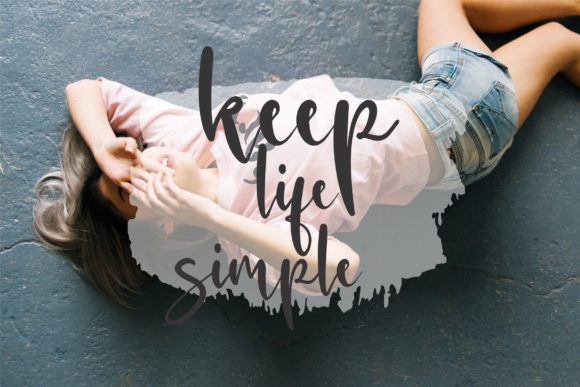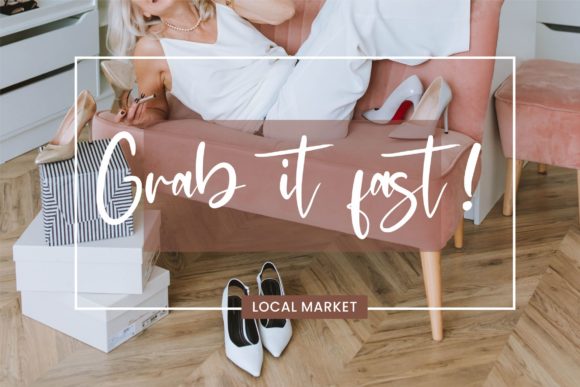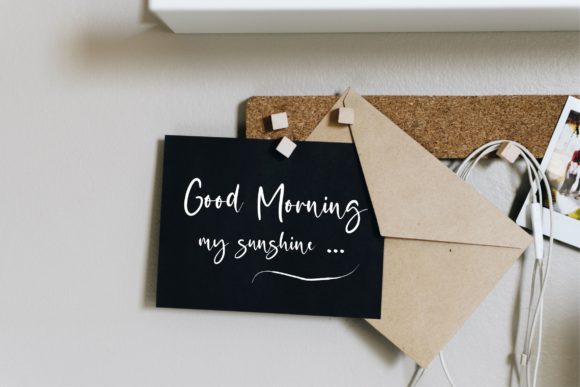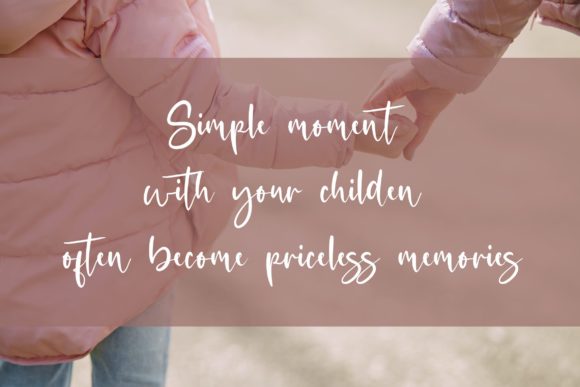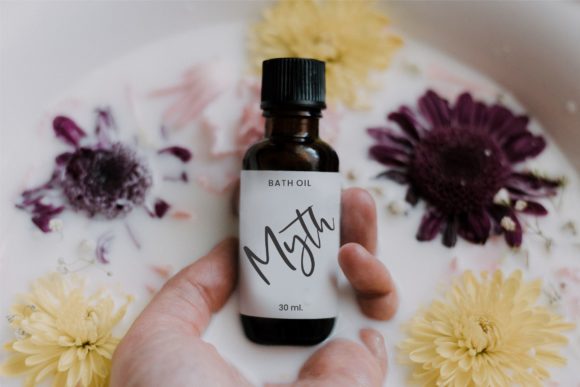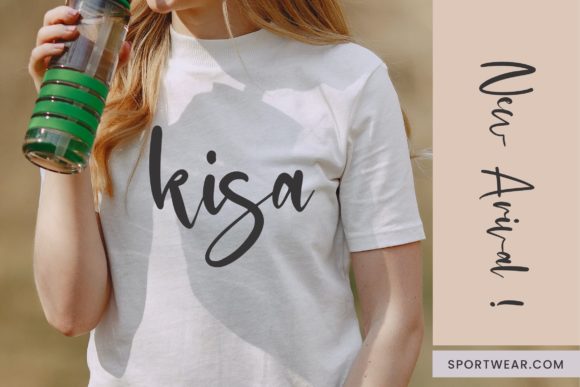
Introduction to Ruth Kealy Font
Have you ever found yourself staring at a blank canvas, waiting for that spark of inspiration to strike? For designers, this moment is all too familiar. It’s the moment when the perfect font can elevate a project from ordinary to extraordinary. That’s where the Ruth Kealy Font comes in – a trendy handwritten font that can add a touch of elegance, luxury, and modernity to any design.
As a valuable resource for designers, the Ruth Kealy Font is perfect for a wide range of creative projects, from branding and logos to wedding designs and social media posts. With its high-quality design and transparent background, this font is a must-have for any design enthusiast looking to take their projects to the next level.
Ruth Kealy Font
- High-quality font design resource ideal for creative projects
- Includes a transparent background for seamless integration into various design applications
- Features a unique and elegant design style, making it perfect for headings and titles
Honest Review: Ruth Kealy Font
As a designer, I’m always on the lookout for high-quality design resources that can elevate my creative projects. Recently, I stumbled upon the Ruth Kealy Font, and I must say it’s a great addition to my design arsenal. ✨
The Ruth Kealy Font is a beautiful, elegant script font that’s perfect for adding a touch of sophistication to any design. It’s available for free download, which is a major plus in my book. The transparent background makes it easy to work with, and the font’s versatility allows me to use it for a wide range of projects.
- High-quality design: The Ruth Kealy Font is beautifully crafted, with intricate details that make it stand out.
- Transparent background: This makes it easy to work with, and I can use it for both digital and print projects.
Of course, no font is perfect, and there are a few limitations:
- Limited language support: The font may not support all languages, which could be a limitation for some designers.
- Not ideal for bold typography: While the font is beautiful, it’s not ideal for bold or loud typography. It’s better suited for more subtle, elegant designs.
Overall, I’m impressed with the Ruth Kealy Font. It’s a high-quality design resource that’s perfect for adding a touch of sophistication to any creative project. With its elegant design and transparent background, it’s a great addition to any designer’s toolkit.
Ruth Kealy Font
The Ruth Kealy Font is perfect for a variety of creative projects, including graphic design, branding, and digital art. Its high-quality design and transparent background make it ideal for use in presentations, documents, and websites. Whether you’re a professional designer or a hobbyist, the Ruth Kealy Font is a valuable addition to any design resource collection.